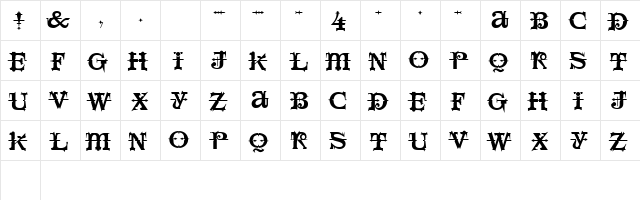
LushUs Medium Font Preview
LushUs Medium
Design Context for LushUs Typeface
LushUs is a composed and adaptable typeface that performs quietly and consistently across a wide range of design contexts.